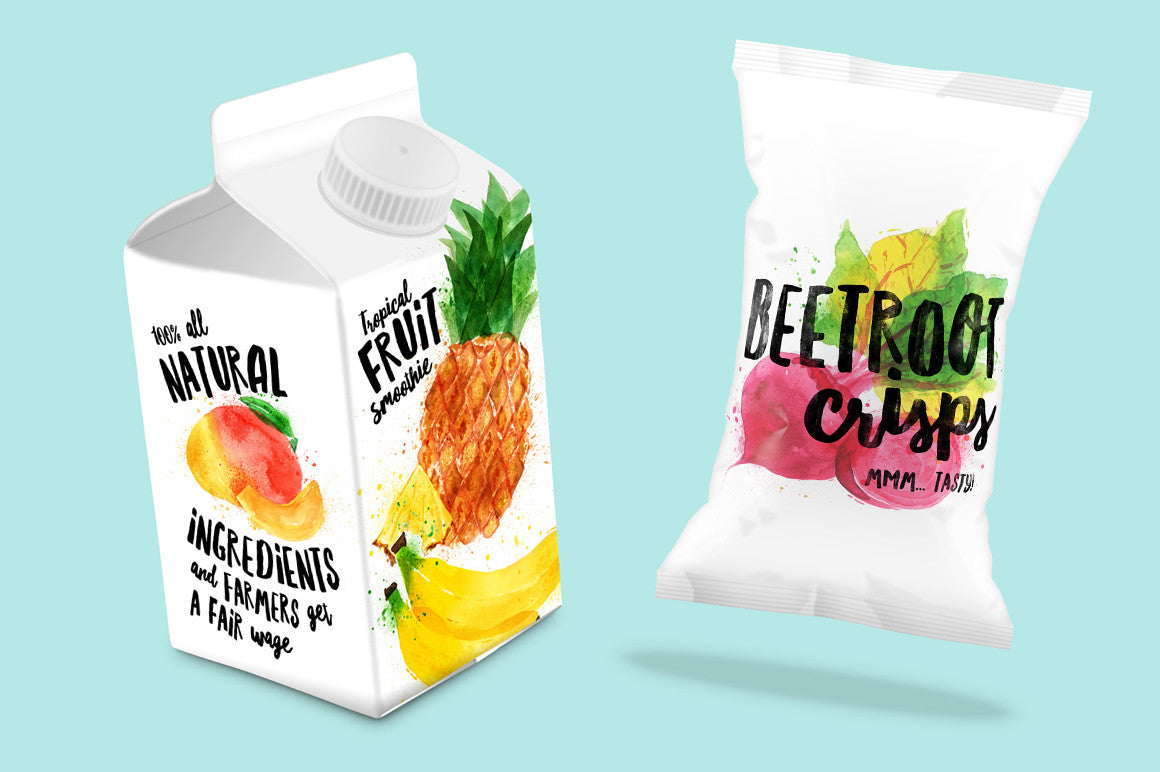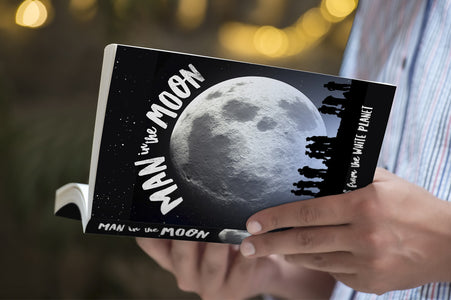
Northern Soul - Typeface
Every wanted to create hand lettered artwork but just don't have the time to learn or practice the skill yourself? Say hello to Northern Soul. A brush typeface made specifically for that purpose. With two styles, caps and script, which fit perfectly together to add personality to your work.
With the caps style, quickly get alternative versions of each letter just by using upper and lowercase letters.
I've tried show in the preview images how versatile the typeface is. Let your imagination run wild.